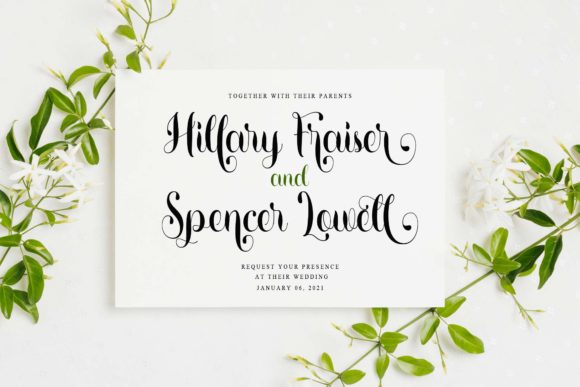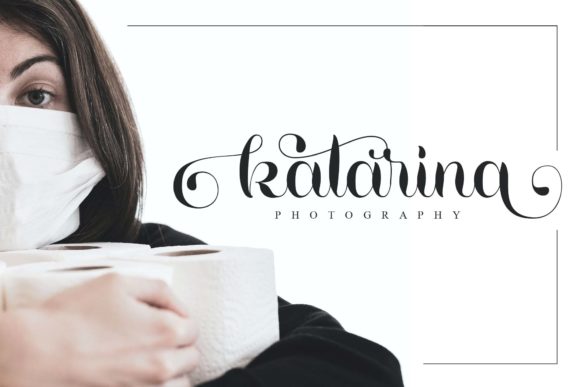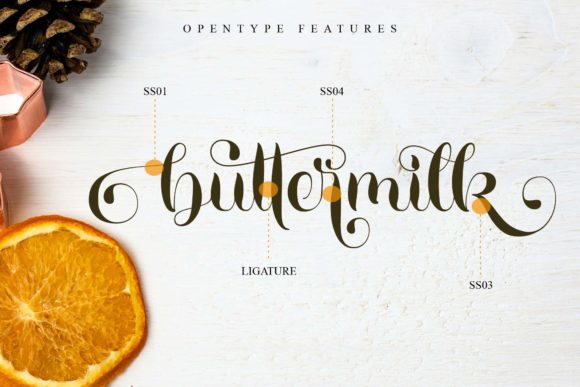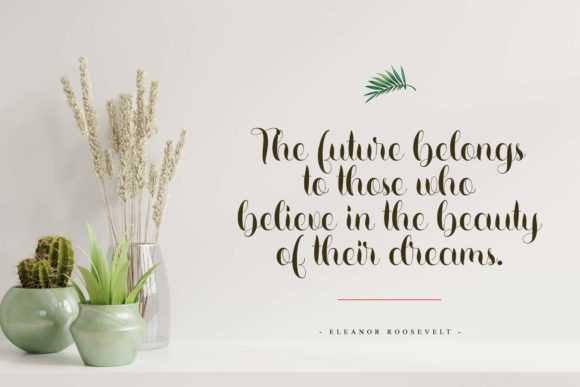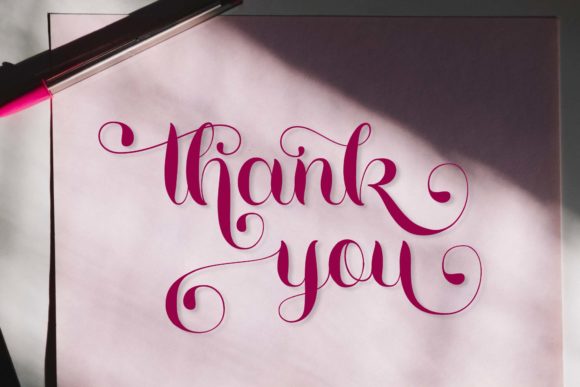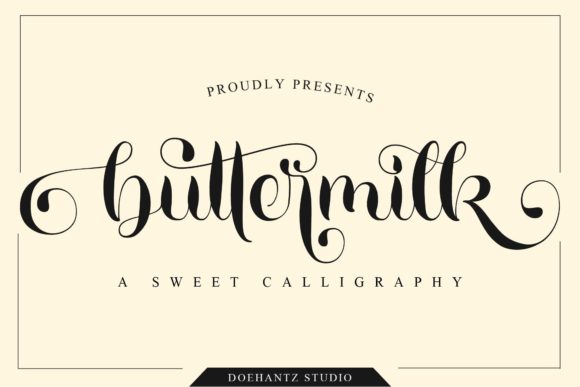
Introducing Buttermilk Font: A Charming Handwritten Font for Your Design Projects
Are you looking for a font that adds a touch of elegance and charm to your design projects? Look no further than the Buttermilk Font! This gorgeous handwritten font is perfect for designers and crafters who want to create beautiful and eye-catching designs. In this article, we’ll take a closer look at the Buttermilk Font, its features, and how you can use it to elevate your design projects.
What is Buttermilk Font?
Buttermilk Font is a stunning handwritten font that is designed to add a touch of charm and sophistication to your design projects. Its elegant and flowing lines make it perfect for creating beautiful headings, titles, and quotes. The font is highly versatile and can be used for a wide range of design projects, from wedding invitations and branding materials to social media graphics and blog posts.
Key Features of Buttermilk Font
So, what makes Buttermilk Font so special? Here are some of its key features:
- PUA Encoded: Buttermilk Font is PUA (Private Use Area) encoded, which means you can access all of the glyphs and swashes with ease. This makes it easy to use the font in your design projects and customize it to your heart’s content.
- Handwritten Style: The font has a beautiful handwritten style that adds a touch of elegance and sophistication to your design projects.
- Charming Appearance: Buttermilk Font has a charming appearance that makes it perfect for designers and crafters who want to create beautiful and eye-catching designs.
- Highly Versatile: The font is highly versatile and can be used for a wide range of design projects, from wedding invitations and branding materials to social media graphics and blog posts.
How to Use Buttermilk Font in Your Design Projects
Using Buttermilk Font in your design projects is easy! Here are some tips to get you started:
- Pair it with Other Fonts: Buttermilk Font pairs well with other fonts, so feel free to experiment with different font combinations to create a unique look.
- Use it for Headings and Titles: The font is perfect for creating beautiful headings and titles that add a touch of elegance and sophistication to your design projects.
- Add Swashes and Glyphs: With its PUA encoding, you can easily access all of the glyphs and swashes to add a touch of personality to your design projects.
- Experiment with Colors: Buttermilk Font looks great in a variety of colors, so don’t be afraid to experiment with different colors to find the perfect look for your design project.
Why Designers and Crafters Love Buttermilk Font
Buttermilk Font is a favorite among designers and crafters, and for good reason! Here are some reasons why:
- Unique and Eye-Catching: The font has a unique and eye-catching appearance that sets it apart from other fonts.
- Easy to Use: With its PUA encoding, Buttermilk Font is easy to use and customize, even for designers and crafters who are new to font design.
- High-Quality Design: The font is designed with high-quality design in mind, making it perfect for professional designers and crafters.
- Versatile: Buttermilk Font is highly versatile and can be used for a wide range of design projects, making it a great addition to any design library.
| Font Name | Buttermilk Font |
| Author | Doehantz Studio |
In conclusion, Buttermilk Font is a gorgeous handwritten font that is perfect for designers and crafters who want to add a touch of elegance and charm to their design projects. With its PUA encoding, charming appearance, and highly versatile design, it’s no wonder that Buttermilk Font is a favorite among designers and crafters. Whether you’re creating wedding invitations, branding materials, or social media graphics, Buttermilk Font is sure to elevate your design projects and help you create beautiful and eye-catching designs.